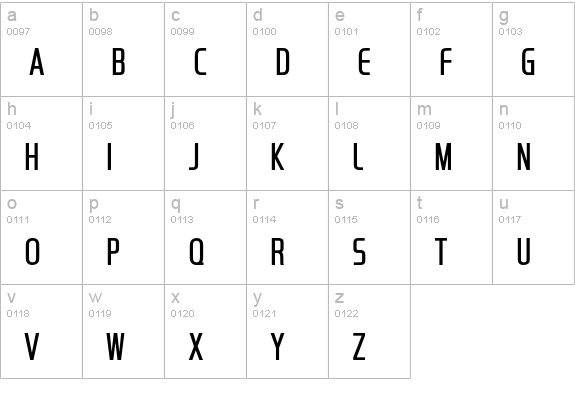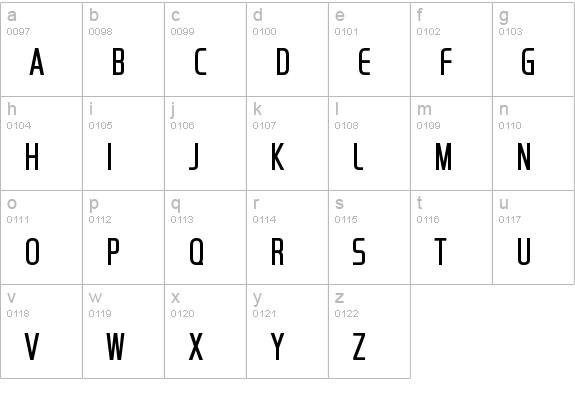
Handel Gothic Compress D Light Font Details
Handel Gothic Compress D Light is a refined, elegant variant in the Handel typeface family \xE2\x80\x94 well suited to elegant body text, refined sub-headings, and luxury branding.
Handel Gothic Compress D Light font is a modern and sleek typeface that is perfect for any design project that requires a bold and contemporary look. With its compressed letterforms and light weight, this font adds a touch of elegance and sophistication to any design. The Handel Gothic Compress D Light font is versatile and can be used for a wide range of applications, including logos, headlines, posters, and more. Its clean and crisp lines make it highly legible, even at small sizes, ensuring that your message will be conveyed effectively. One of the best things about Handel Gothic Compress D Light font is that it is available for free download at FontsMarket.com. This means that you can enhance your designs without having to worry about any additional costs. Simply visit FontsMarket.com and easily access this fantastic font to elevate your design projects to new heights. Whether you are a graphic designer, a web developer, or someone who simply wants to add a touch of style to their personal projects, Handel Gothic Compress D Light font is the perfect choice. Its modern and sleek design, combined with its availability as a free download, makes it an invaluable asset for any creative endeavor. Don't miss out on the opportunity to enhance your designs with this amazing font - download Handel Gothic Compress D Light today at FontsMarket.com and take your creativity to the next level.